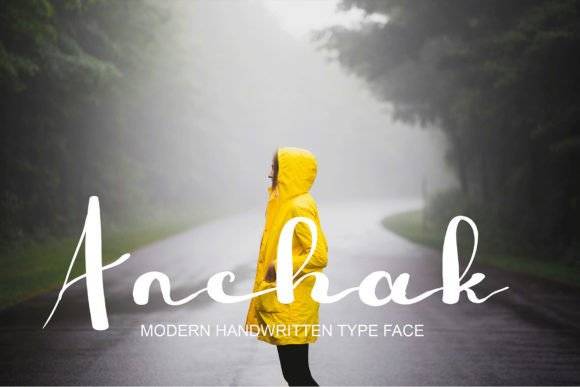
Anchak Font for Cricut, Silhouette and Printable Designs
Anchak is a decorative font built for digital crafters and hobbyists using cutting machines like Cricut and Silhouette. With bold character strokes and unique letter shaping, it brings creative impact to handmade projects and printable goods. This font pairs beautifully with other typefaces and graphic elements, allowing for endless customization options. Whether you're creating stunning invitations or personalized home decor, the anggiana font for cricut projects elevates your designs to a professional level. Its versatility makes it a must-have for anyone looking to stand out in their crafting endeavors.
This font entity supports personal expression through custom labels, iron-on decals, paper art, and wall vinyls. Anchak’s clear form ensures high readability while maintaining its quirky, handcrafted feel.
It’s ideal for vinyl cutting, DIY signage, and fun printable materials that benefit from strong letterform visibility.
- Vinyl decals and wall quotes
- Labels for jars, planners, and gifts
- Iron-on t-shirts and tote bags
- Paper crafts and card making
- Printable posters and stickers
- Bold and legible for vinyl and print projects
- Perfect for personalizing any creation
Q: What kind of font is Anchak?
A: Anchak is a bold decorative font designed for cutting machines like Cricut and Silhouette, as well as printable crafting projects.
Q: Can I use it to make stickers and labels?
A: Absolutely. Anchak is perfect for printed or cut sticker designs, planner labels, and other printable products.